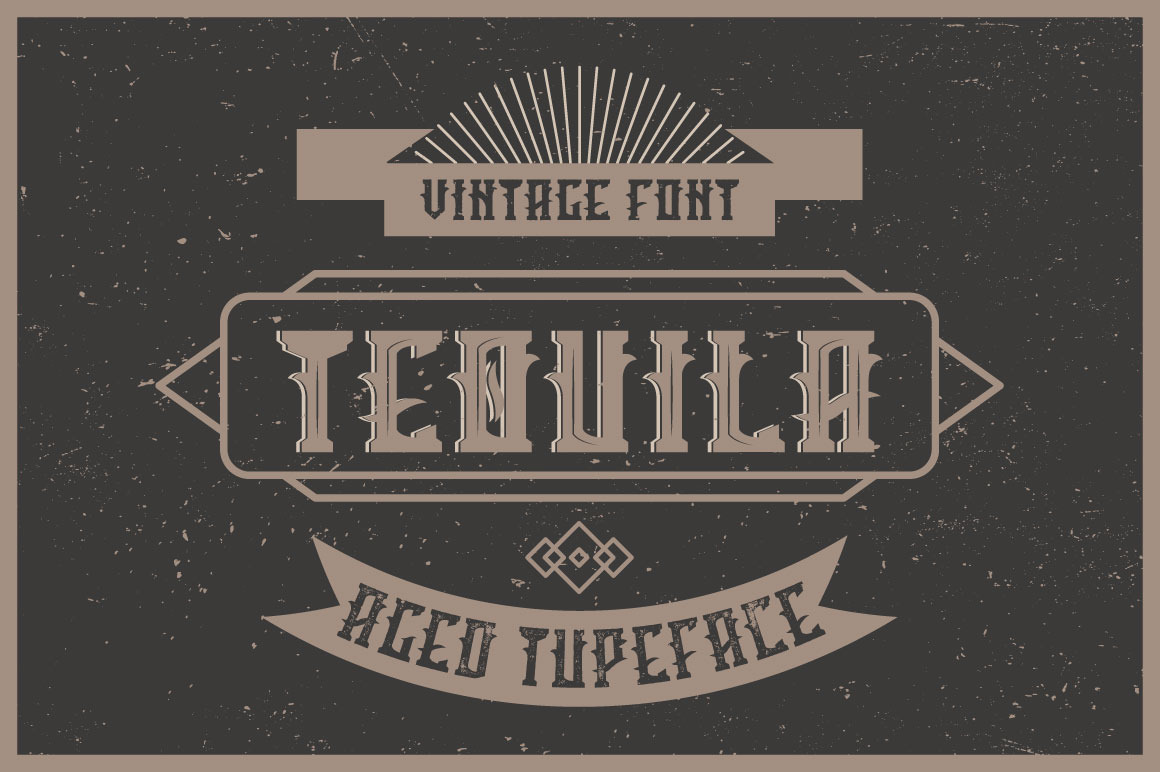
Tequila label font
Introduce a vintage look label typeface named "Tequila". It's made in a strong and vintage label style. Typeface is good looking on any labels design.
- 5 fonts in complect with special effects
- You can mix shadow effect as shown at 5th screenshot